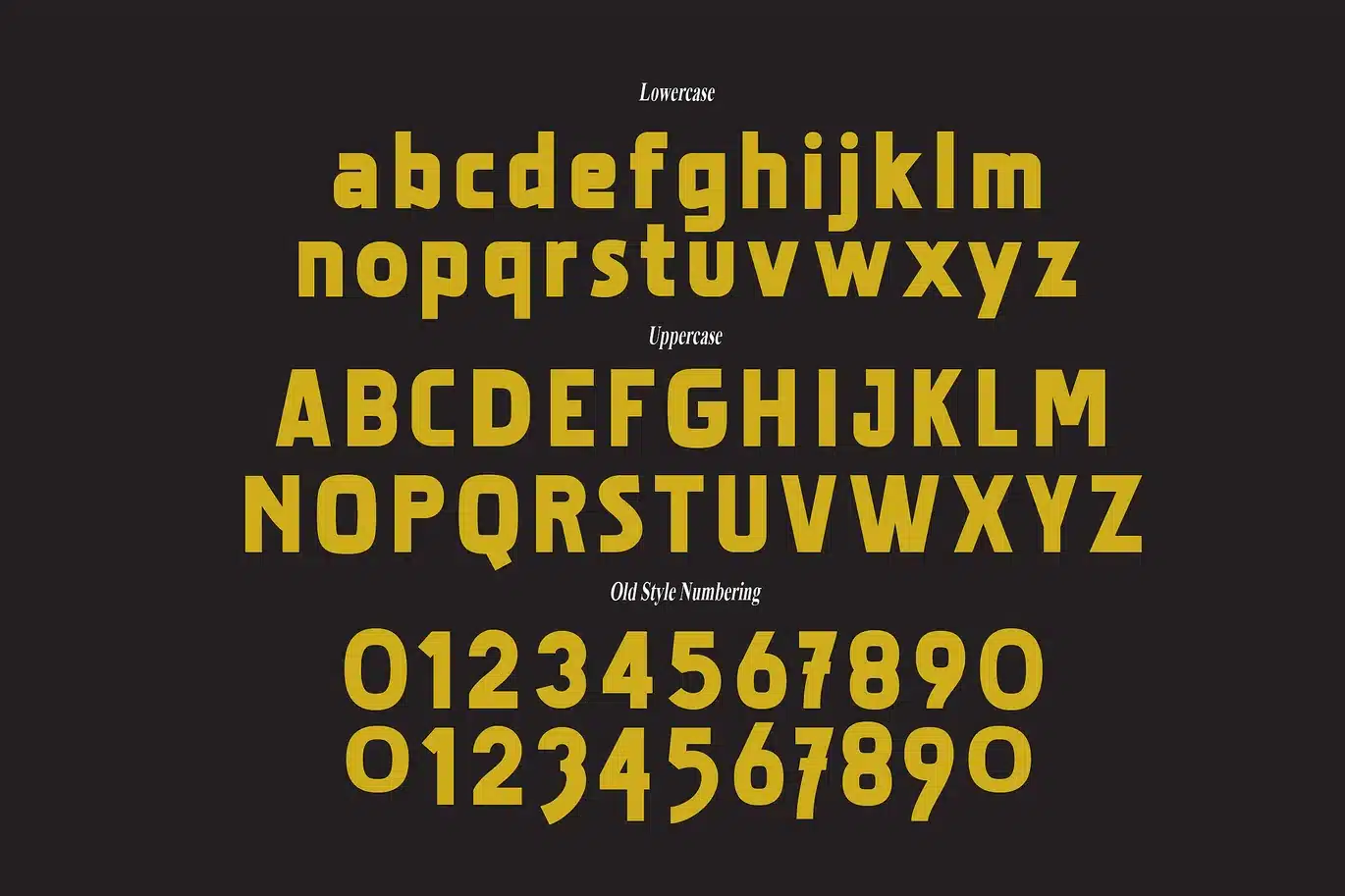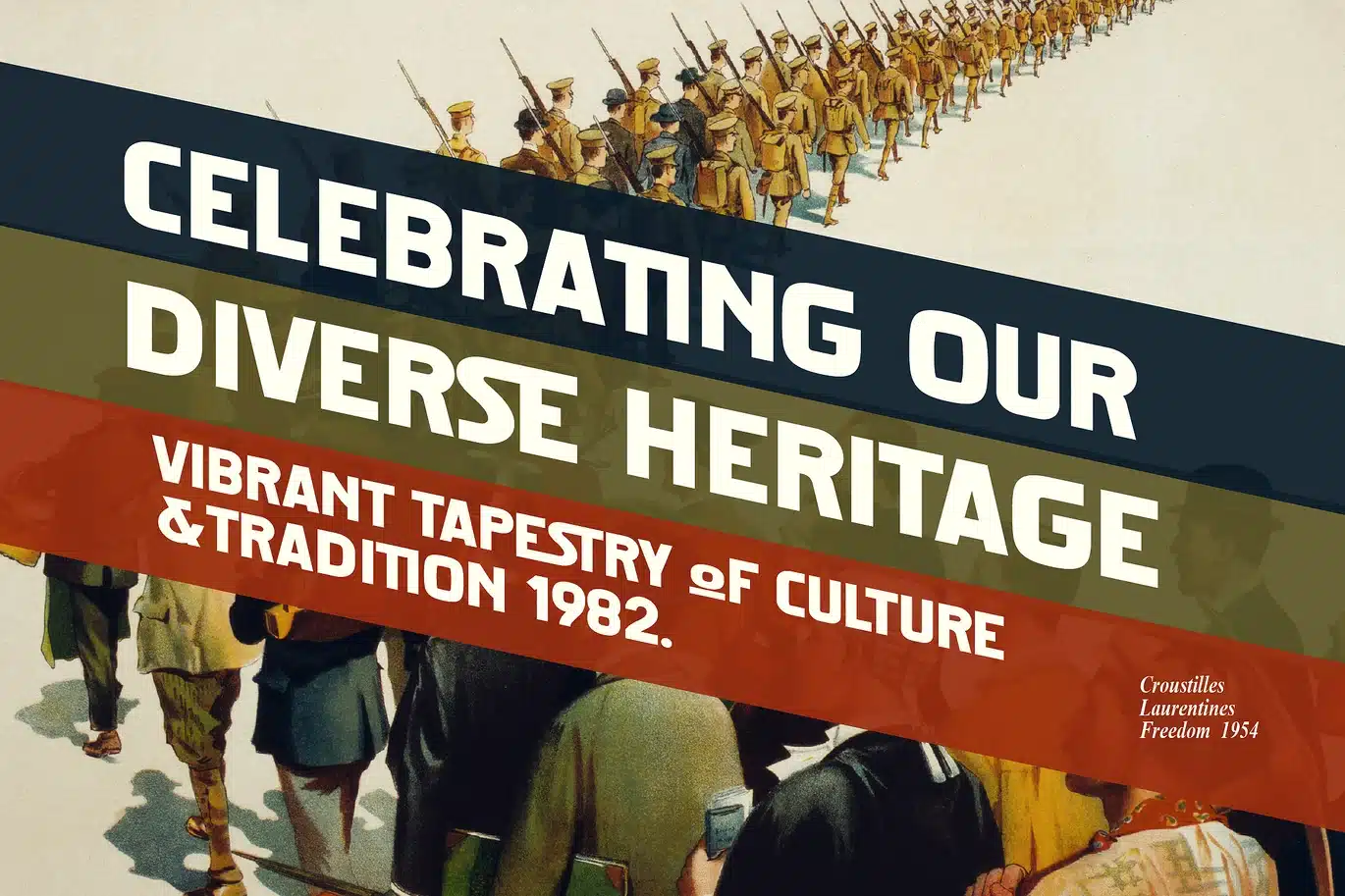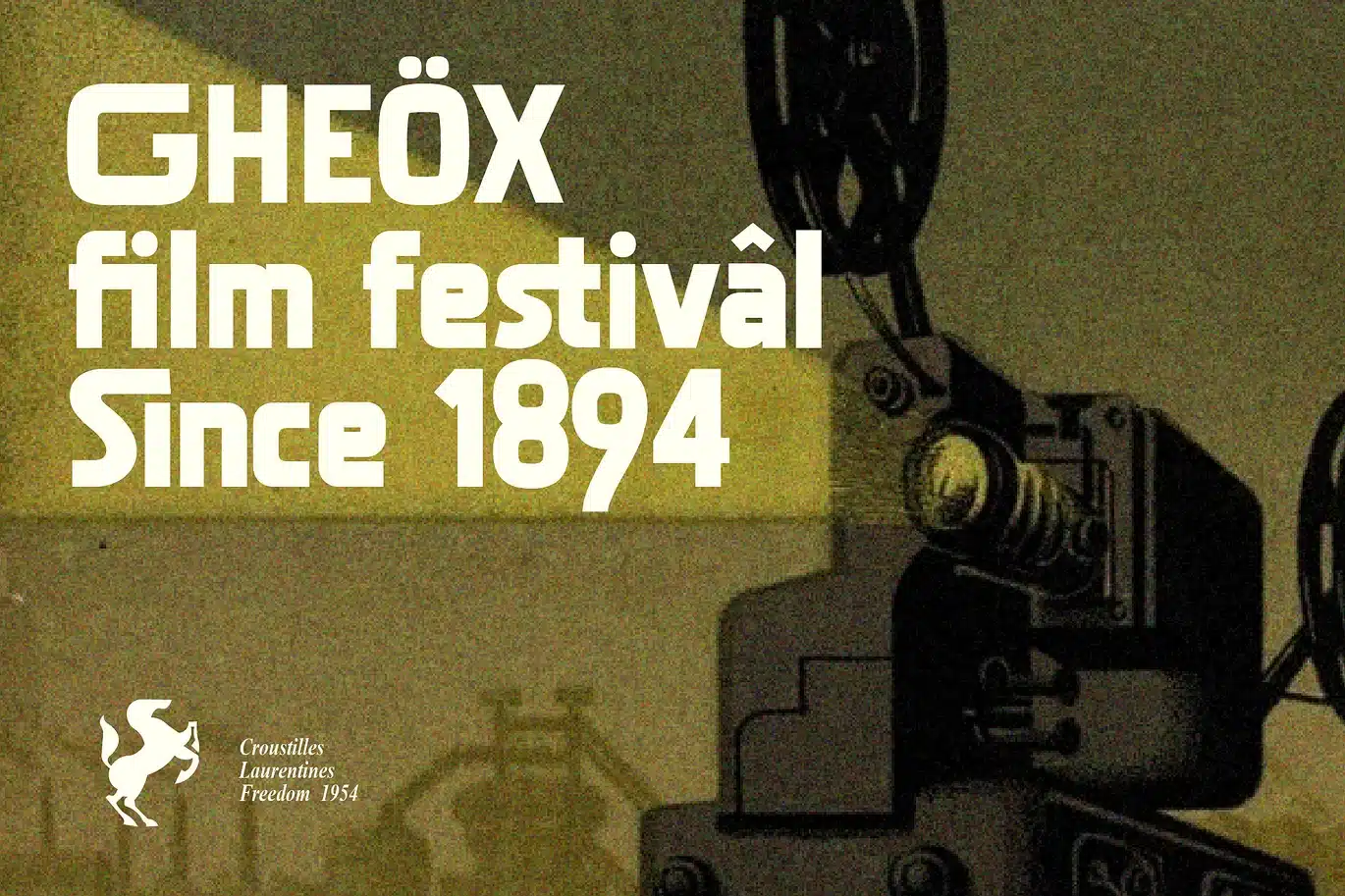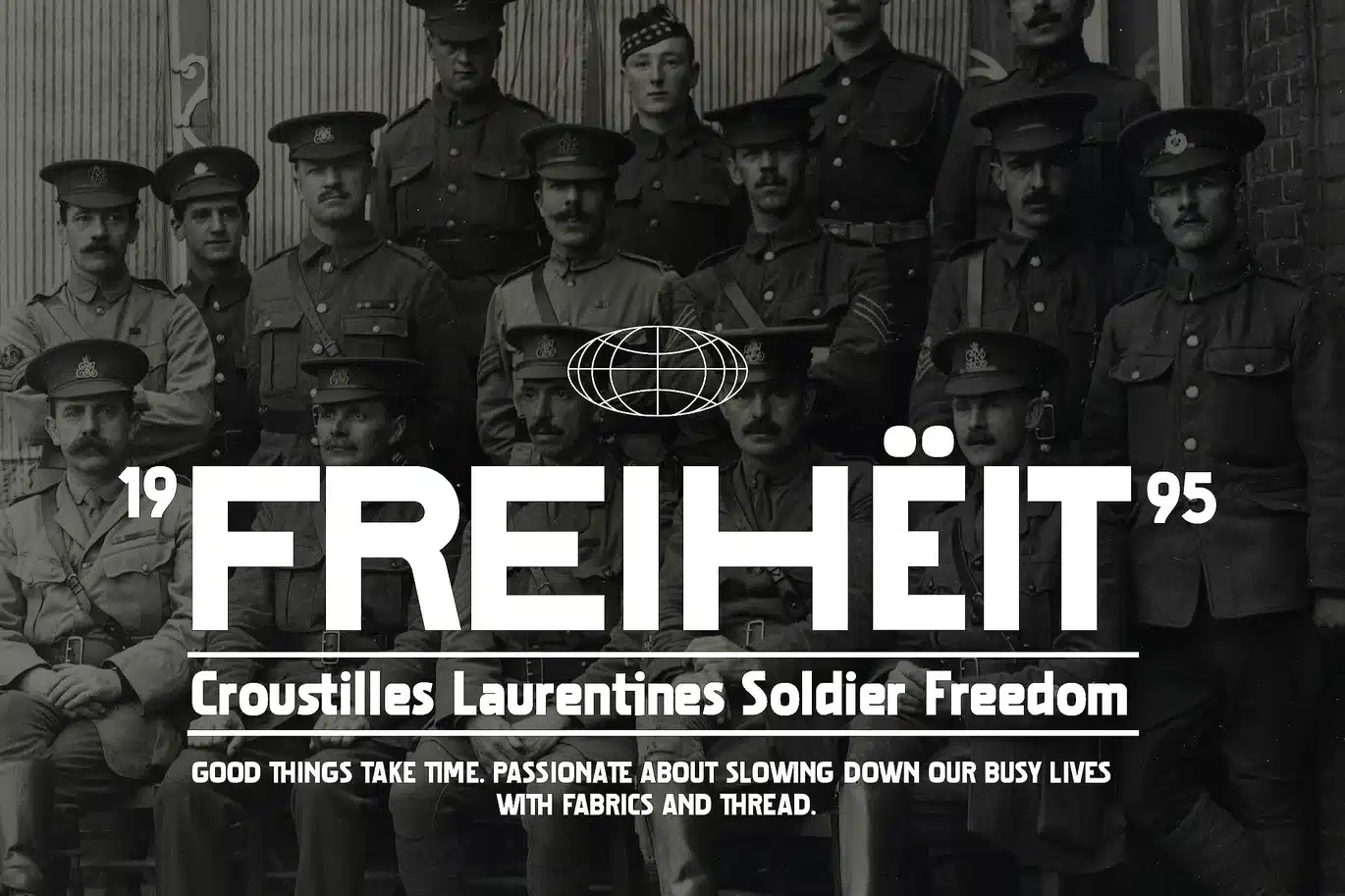
Cd Freiburg Font
A retro vintage typographic world of wars portrays each letter as a soldier fighting for attention and impact. The fonts are reminiscent of propaganda posters and wartime advertisements from the era, evoking a sense of urgency and patriotism. Bold, blocky serifs combined with rugged, weathered textures capture the grit and determination of those turbulent times. Each character bears the scars of conflict, yet stands tall and defiant.
- Stylistic Alternates
- Old Numbering Style